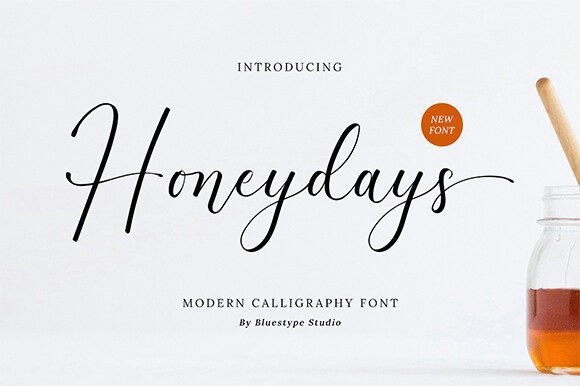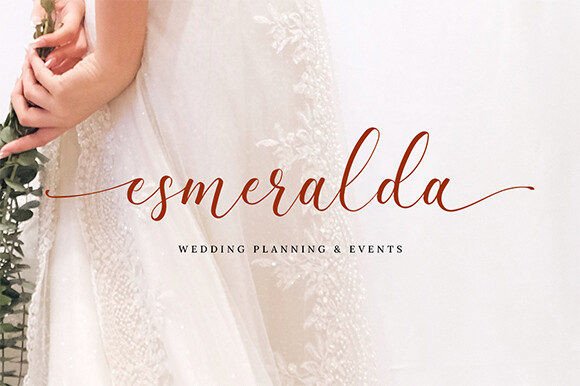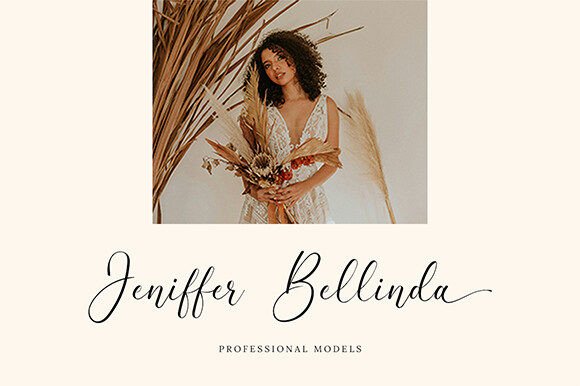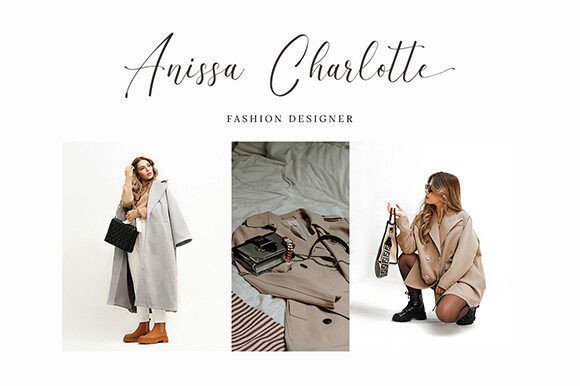
Honeydays Font: Modern Calligraphy for Elegant Wedding & Branding Designs
About the Honeydays Font
Crafted with precision, the Honeydays Font is ready to bring your ideas to life. Honeydays is a stunning calligraphy font with a natural touch and modern style. Use it for your most creative projects and see how it brings them to life. Get inspired by its modern simplicity!
Honeydays excels in applications requiring a touch of elegant informality. It’s ideal for short headlines, logos, wedding invitations, and social media graphics where its refined yet approachable calligraphy style shines. Avoid using it for large blocks of body text or UI elements; its decorative nature compromises readability in extended passages.
Pairing Honeydays effectively requires considering its inherent lightness. A clean sans-serif like Lato or Open Sans provides a strong contrast and ensures readability in supporting text. Alternatively, a classic serif such as Playfair Display adds a touch of vintage sophistication for a more luxurious feel.
The overall personality of Honeydays is sophisticated yet friendly, conveying a sense of warmth and approachability. Its versatility makes it suitable for brands focused on lifestyle, beauty, or events that aim for an upscale, yet relatable image.
Honeydays Font Usage Examples
Honeydays Font Example